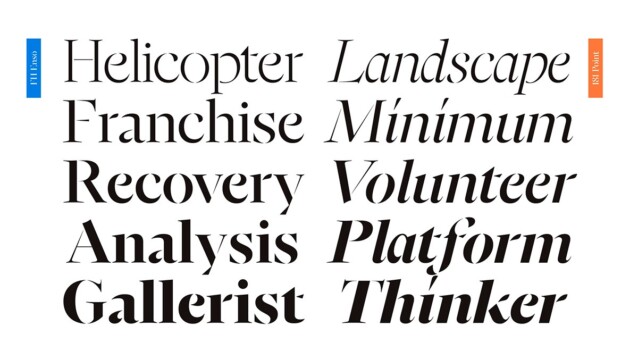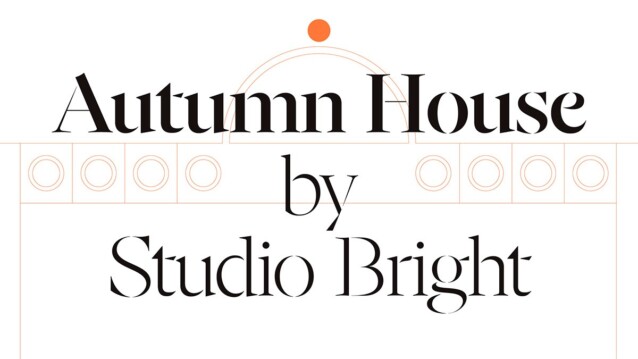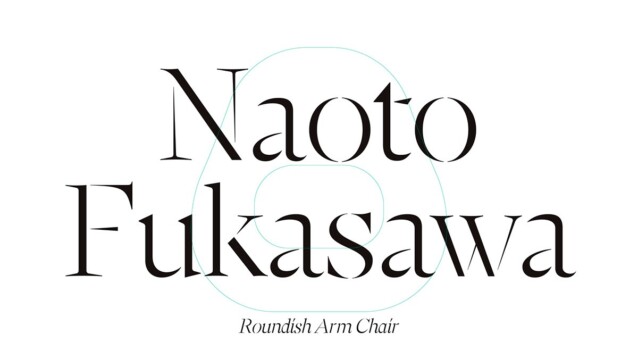
FH Ensō Font Family
FH Ensō Font is a stencil serif font family with elegant & stylish curves. Gaps and imperfect forms are the main features of Enso. Named after the circle, FH Enso emerged as an homage to Japanese calligraphy. Zen practitioners and other imposers refer to this idea as the beauty of imperfection; they identify it with wabi-sabi. It reminds us that all things including us and life itself, are impermanent, incomplete, and imperfect.